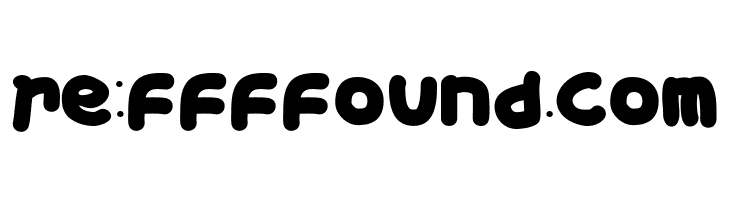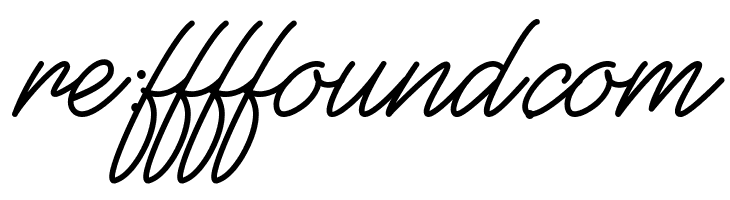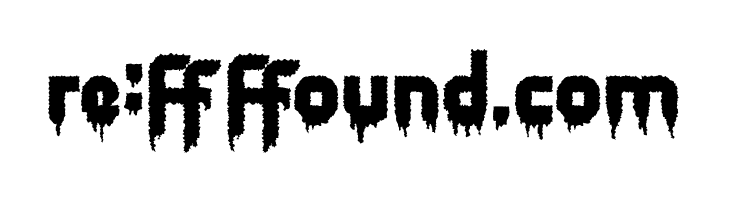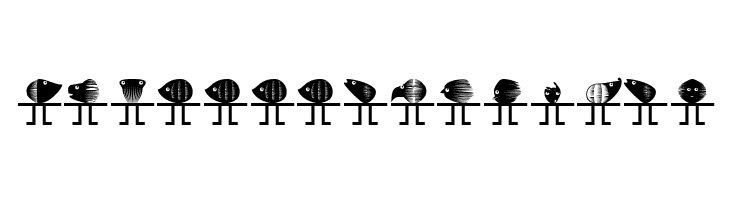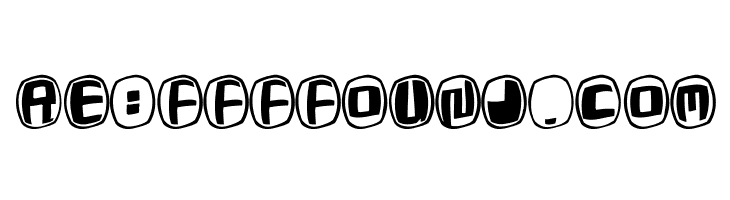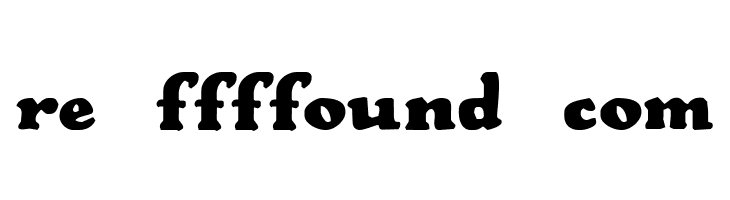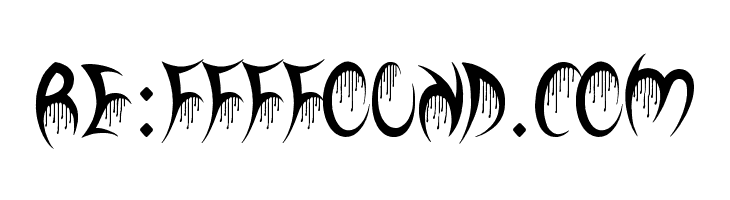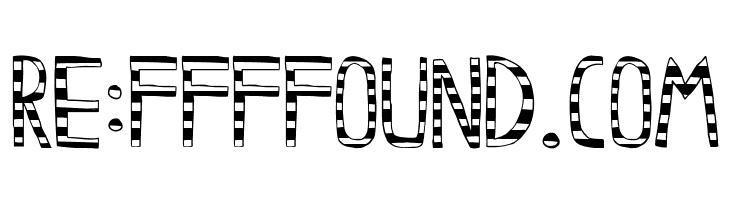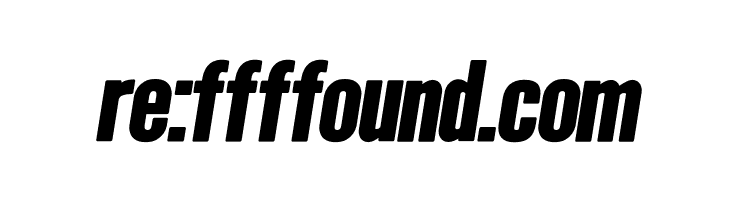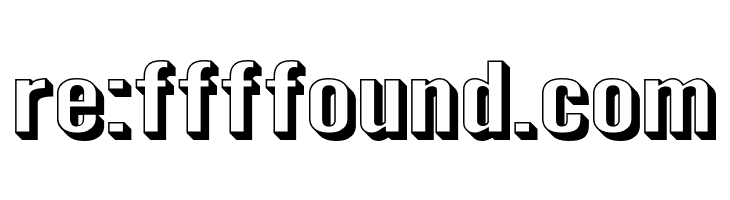
A bold, super extended font with a shadow effect for a three-dimensional look.
A bold, shadowed, and oblique font with a dynamic and three-dimensional look.
A bold, impactful typeface with a vintage woodtype aesthetic.
A bold, oblique font with a vintage woodtype feel, perfect for impactful designs.
A playful, bird-themed decorative display font with bold, abstract shapes.
A playful, bold font with characters enclosed in rounded shapes, perfect for creative projects.
A dynamic and fluid script font with elegant, flowing letterforms.
A bold, playful font with rounded, hand-crafted characters.
A playful, striped decorative font with a hand-drawn feel.
A playful, bold font with rounded characters perfect for festive themes.
A dramatic, horror-themed font with sharp edges and dripping elements.
A bold, jagged font with a dripping, eerie style perfect for horror themes.